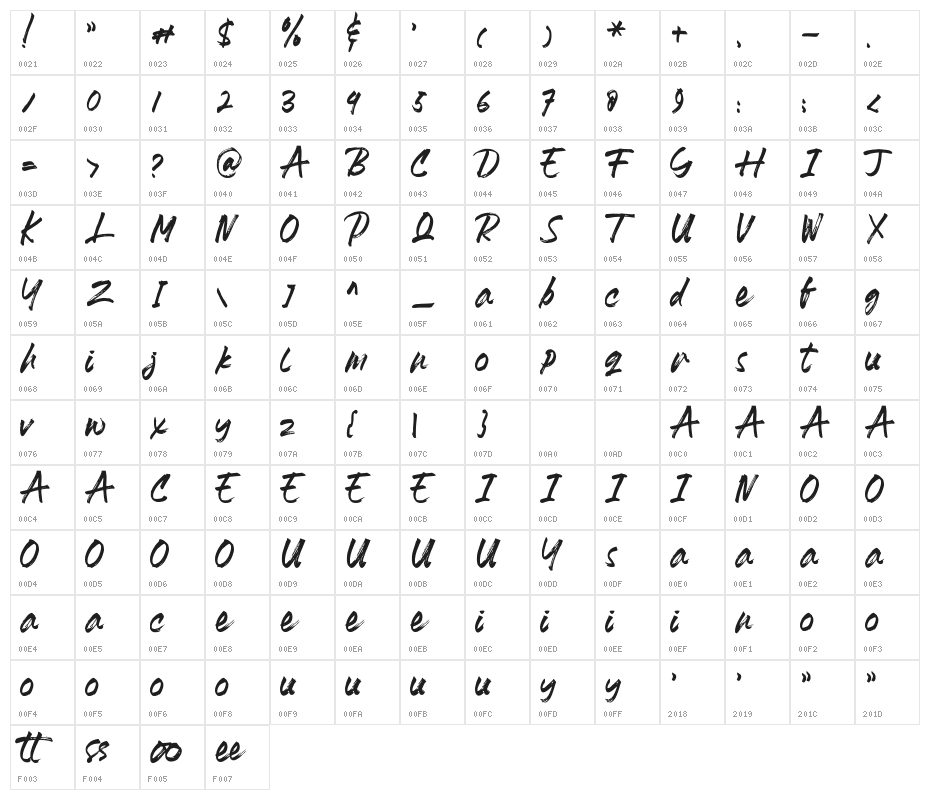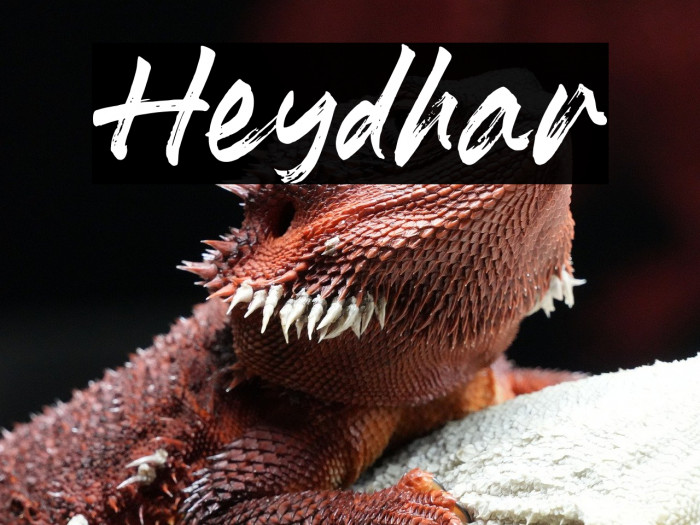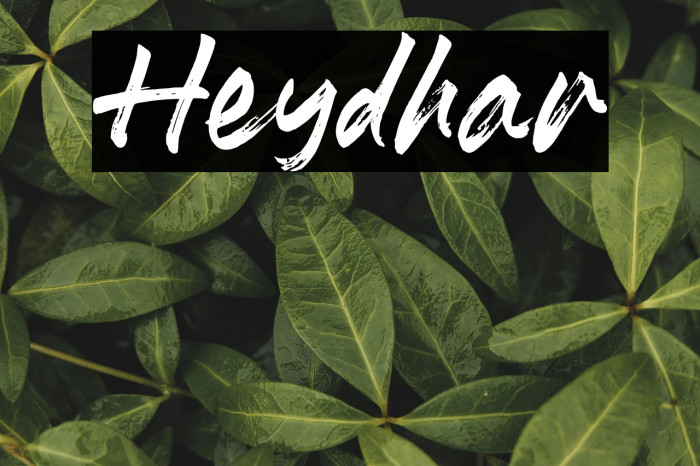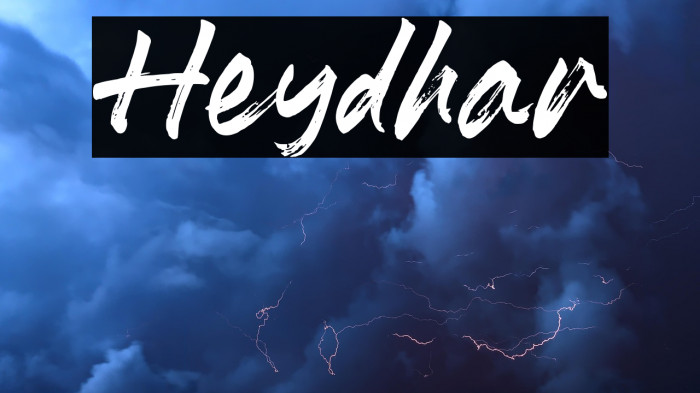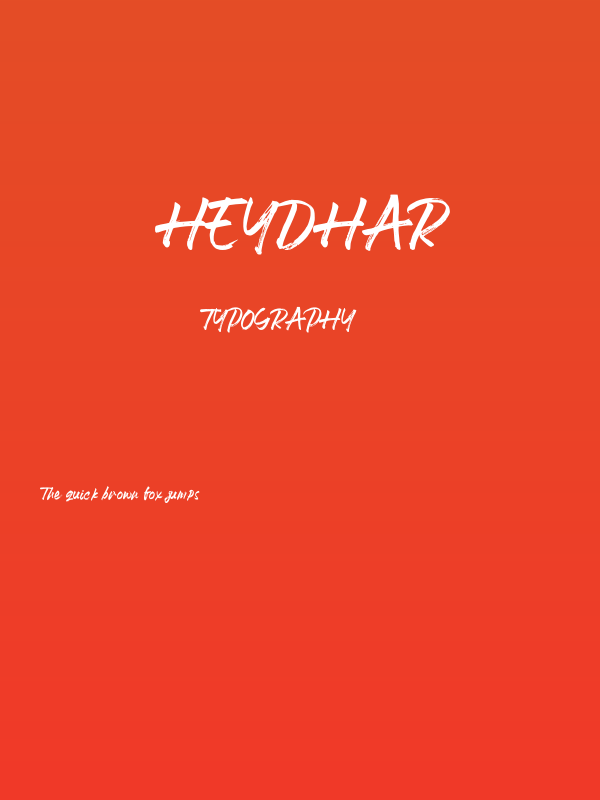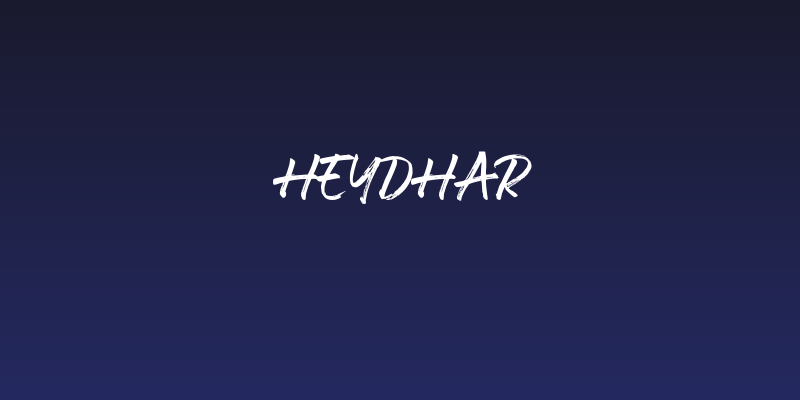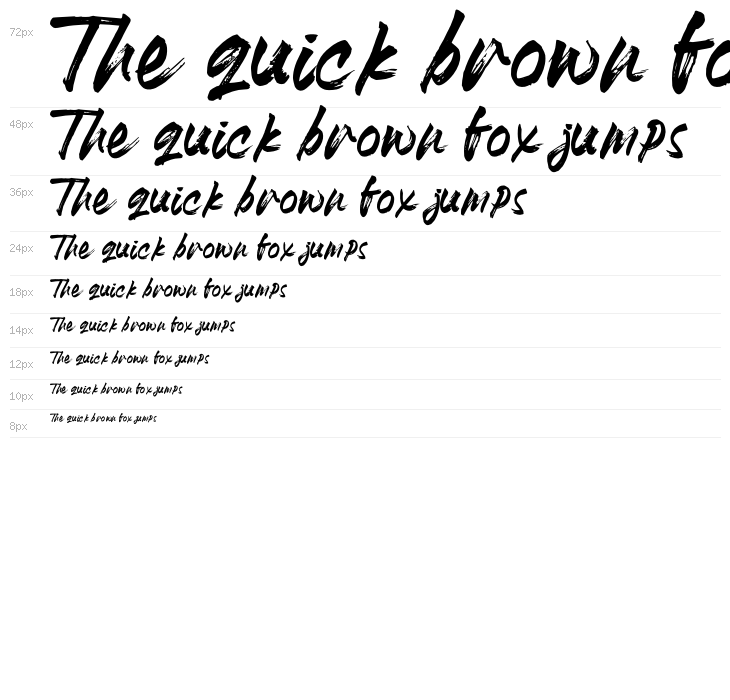
Heydhar Font
Heydhar Description
This expressive and dynamic font features a bold, brush-like style that exudes energy and creativity. The strokes are irregular and textured, giving it a hand-painted appearance. Each character is unique, with varying thickness and a slightly slanted orientation, adding to its informal and artistic feel. The uppercase and lowercase letters maintain a consistent style, while the numbers and special characters blend seamlessly with the overall design. This font is perfect for projects that require a personal touch or a bold statement.
| Proposed Projects | Ideal for posters, album covers, branding, and creative projects that need a personal and dynamic touch. |